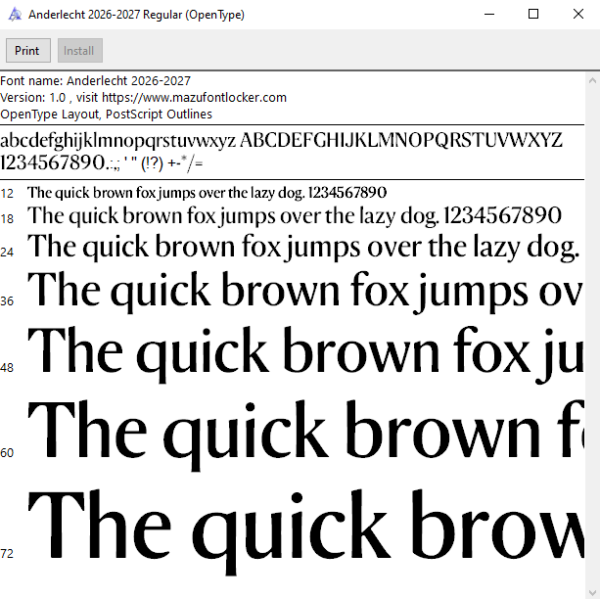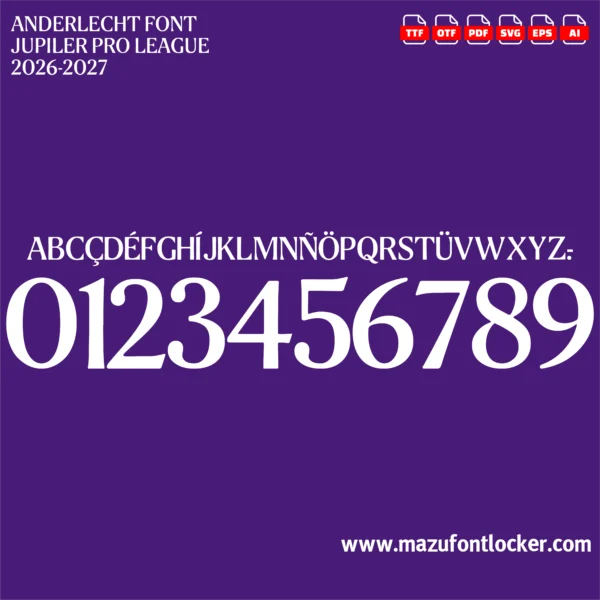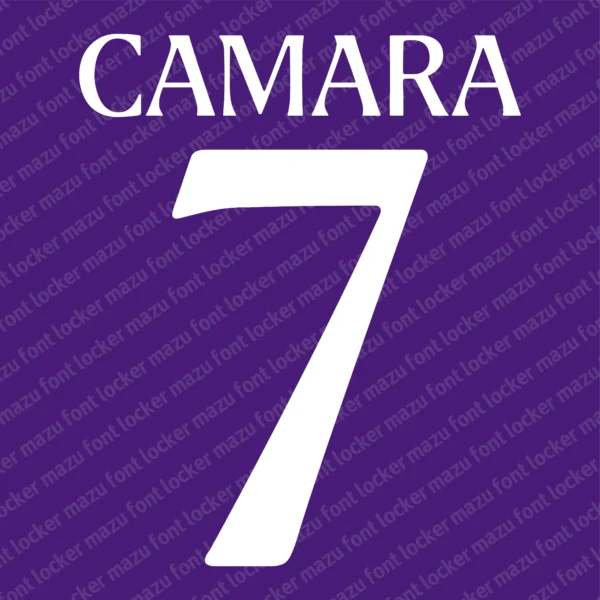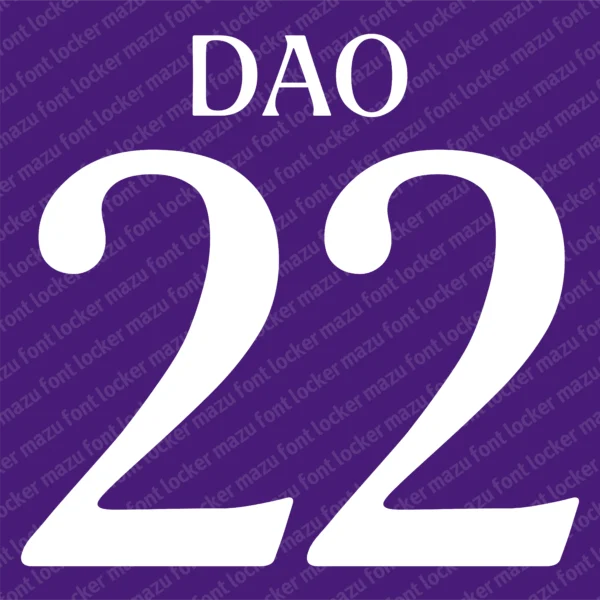
Anderlecht 2026-2027 Font Vector – Ultimate Belgian Warriors Masterpiece
Anderlecht 2026-2027 Font Vector – Authentic RSC Anderlecht Typeface
The Anderlecht 2026-2027 Font Vector is a premium typeface that accurately recreates the official match lettering worn by RSC Anderlecht during the 2026-2027 season. This high-quality vector font kit captures the bold, dynamic, and classic typography that represents the rich heritage, passion, and purple pride of the club.
Designed for professional designers and passionate Anderlecht fans, the Anderlecht 2026-2027 Font Vector delivers perfect authenticity for creating realistic jersey mockups, fan merchandise, matchday posters, social media graphics, and Belgian football content. It pairs beautifully with the iconic purple home kit featuring the famous Anderlecht crest.
This font stands out because of its sharp vector precision and strong club identity. Every letter and number is crafted to match the exact style used on the players’ shirts during the 2026-2027 season. Whether you are making realistic kit templates or exciting Anderlecht content, the Anderlecht 2026-2027 Font Vector gives your designs that authentic Belgian purple look.
The letterforms in the Anderlecht 2026-2027 Font Vector are tall, bold, and highly readable. The strokes have a strong, clean weight with excellent edge definition that looks powerful on the back of jerseys while maintaining classic Belgian heritage and modern sporting elegance.
• Full uppercase A–Z and numbers 0–9 in authentic Anderlecht 2026-2027 style
The Anderlecht 2026-2027 Font Vector is an independently designed typeface package. It is carefully crafted to replicate the official shirt lettering style of the 2026-2027 season. This font kit is perfect for creative projects, fan edits, nostalgic jersey designs, and custom football graphics.